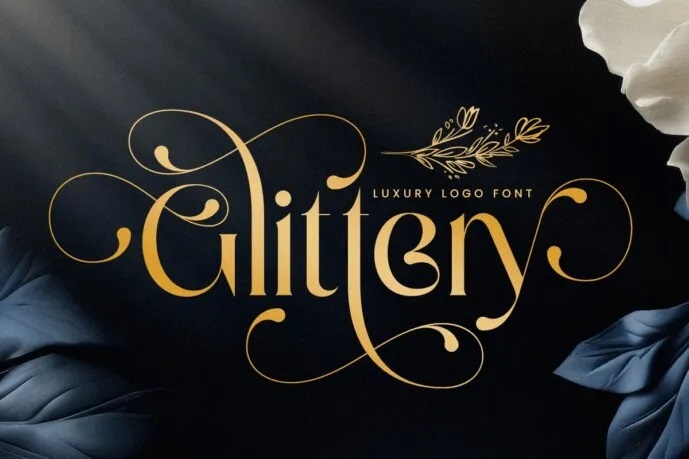
Glittery Serif Font
Glittery Font is a luxurious logo typeface suitable for enhancing your luxurious branding projects. The opulent and shimmering elements garnered enable its usage in distinctive style logos designs of luxury brand, inviitaitons and packaging. The new letters of Glittery are more elegant and glamorous, perfect for fashion, jewelries or any other luxury brand.
Fascinated by the glow of the luxury, packed cup shapes of Glittery convey the esthetic appeal in every curve. This font was created to provide your designs with a luxurious and premium look that will set the focus on your business among many others. Whatever your project – a logo for a luxurious shop or a luxury service, Glittery is aimed to be memorable!
If you want your designs to look sleek and luxurious with a hint of vintage flare then Glittery is definitely the shade to do the trick. You can easily achieve all the frolics of your dreams with Glittery’s fine and extra lavish lustrous appearance.